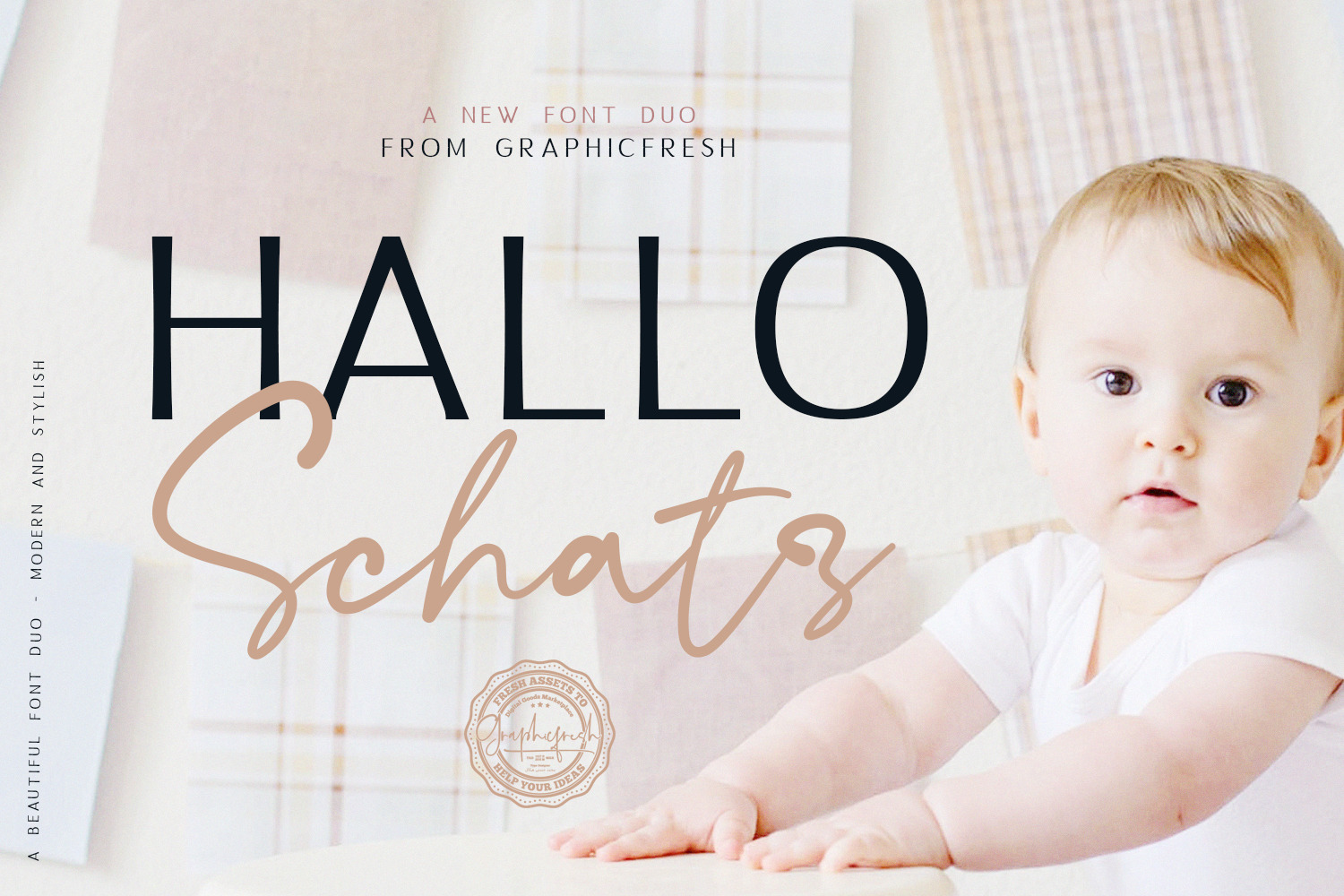
Hallo Schatz Font Duo
Introducing Hallo Schatz Font Duo!. It comes with an elegant and striking style which is perfect to make any design stand out! This font is perfect for branding, wedding invites, magazines, mugs, business cards, quotes, posters, and more.
Hallo Schatz Type Features:
- Suitable for Headlines, Logotypes, Signs, Posters, Letterhead, T-Shirt and many more.